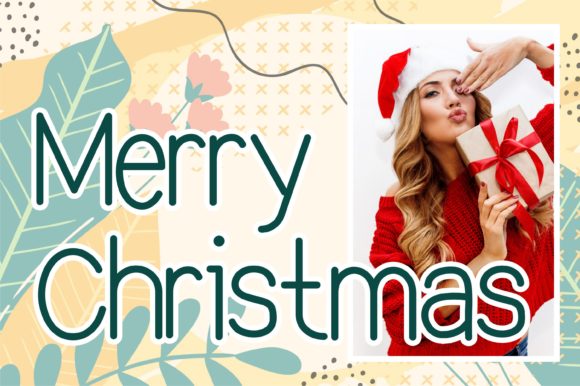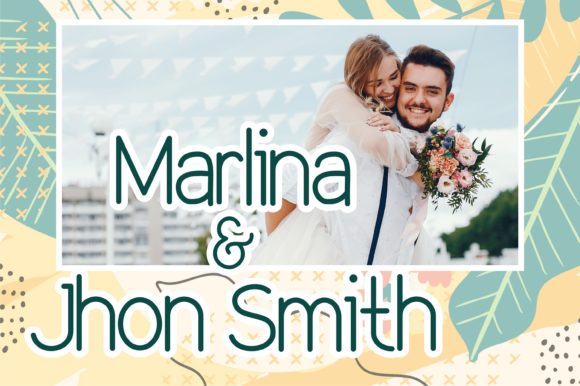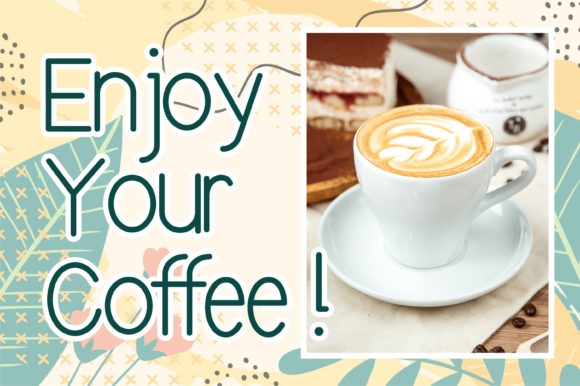
Introduction to Rokitt Font
Remember that moment when you’re working on a creative project and you just can’t seem to find the perfect font to bring it all together? You browse through design resources, scrolling through page after page of options, but nothing seems to capture the essence of your vision. That’s where the Rokitt Font comes in – a natural, simple, and elegant sans serif font that’s sure to elevate your design to the next level.
Whether you’re designing a wedding invitation, a thank you card, or a logo, the Rokitt Font is a versatile and high-quality option that’s perfect for any creative project. Its relaxed and fresh feel makes it a standout choice, and the best part? It’s available for free download, making it an accessible design resource for designers of all levels.
With its transparent background and clean lines, the Rokitt Font is a valuable addition to any designer’s toolkit. Whether you’re a seasoned pro or just starting out, this font is sure to become a go-to favorite for all your design needs.
Key Features of Rokitt Font
- High-quality, professional font ideal for creative projects and design resources.
- Unique characteristics: Rokitt Font features a modern, sans-serif design with clean lines and geometric shapes, making it perfect for modern branding and design projects.
Honest Review: Rokitt Font
I recently came across the Rokitt Font and was excited to give it a try in my latest creative project. As a designer, I’m always on the lookout for high-quality fonts that can elevate my designs and make them stand out.
- ✨ Clean and modern design aesthetic
- ✨ Highly customizable and versatile
- ✨ Transparent background makes it easy to use on different backgrounds
- ⚠️ Limited character set, which may not be ideal for longer texts
- ⚠️ May not be suitable for use in small font sizes due to its bold and playful nature
Overall, I’m impressed with the Rokitt Font. While it may have some limitations, its clean design and high level of customization make it a great addition to any design project. I’d definitely recommend it to fellow designers looking for a unique and eye-catching font.
The Rokitt Font is suitable for a wide range of creative projects, including logos, branding materials, and marketing materials. Its high quality and transparent background make it an ideal choice for designers who want to create complex and visually appealing designs.